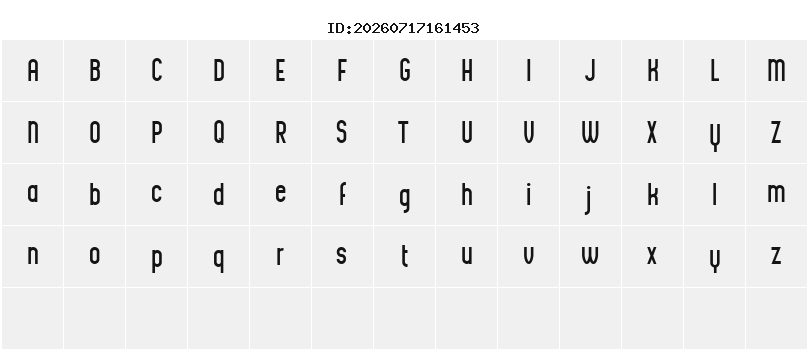
Biscuit Pro Preview
• Font Name: Biscuit Pro
• Designer: Kustomtype
• Manufacturer: Kustomtype
About Biscuit Pro.ttf
Biscuit Pro.ttf is a modern, elegant sans-serif font designed for ultimate readability and visual harmony. Perfect for branding, headlines, web design, and print materials.